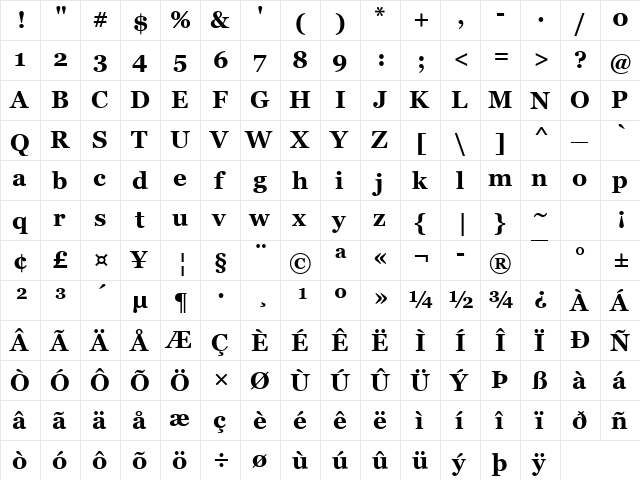
Vani Bold
| Designer | Muthu Nedumaran |
Design Context for Vani Typeface
Vani takes a measured approach to typography — its balanced proportions and neutral character make it a reliable workhorse for both digital and print work. Its bold stroke weight gives it real presence on the page.